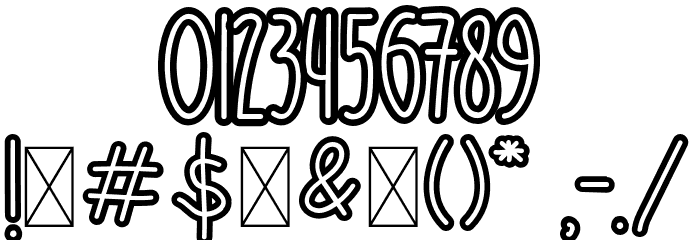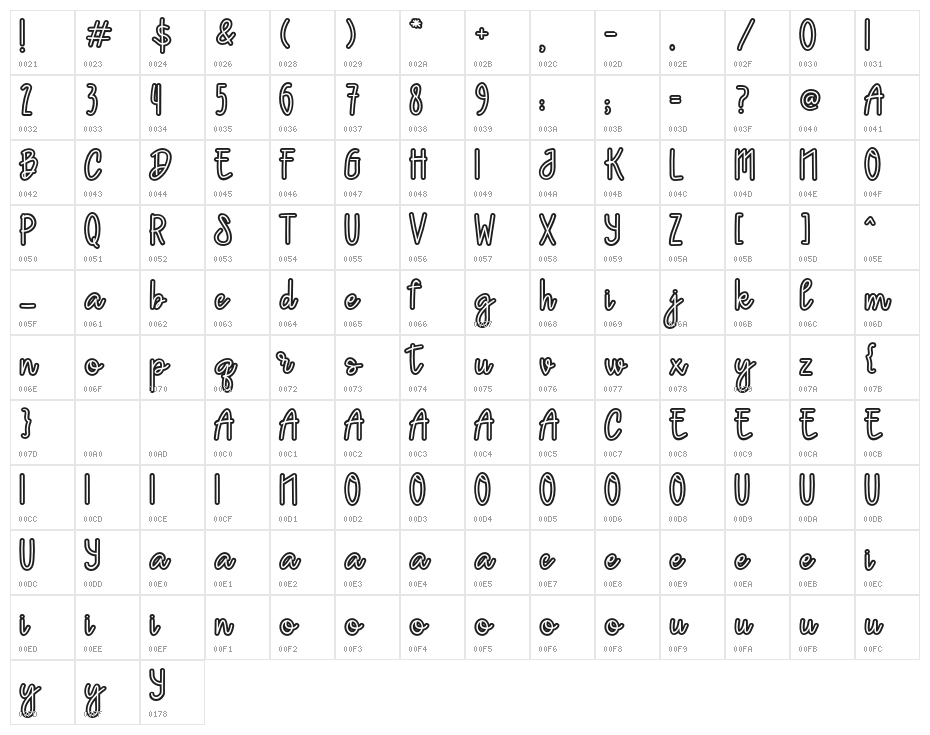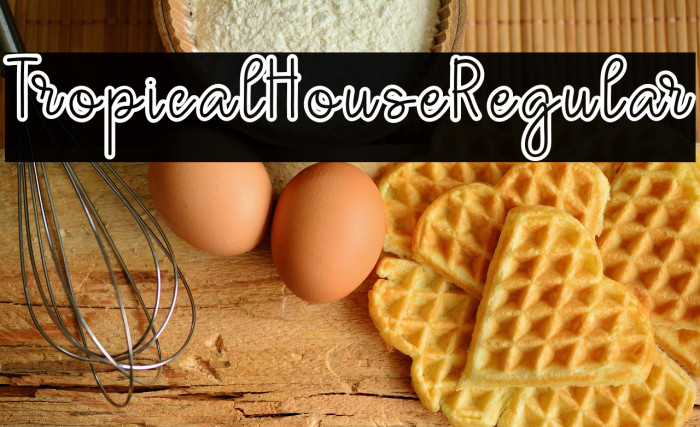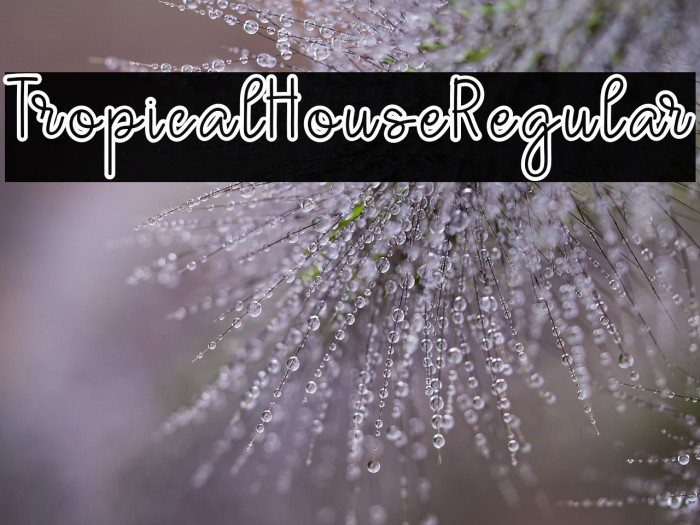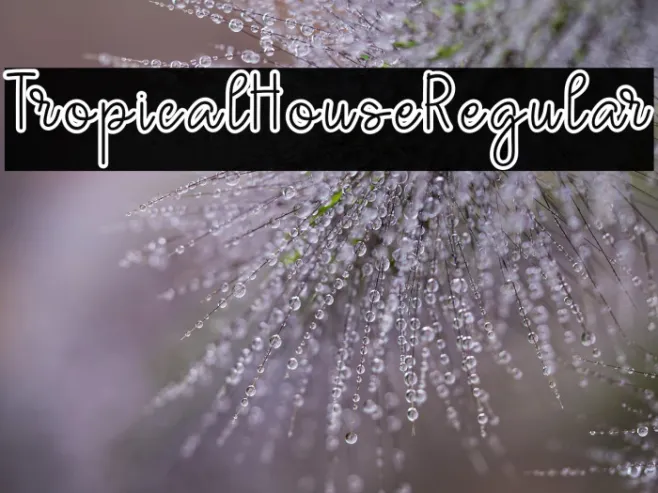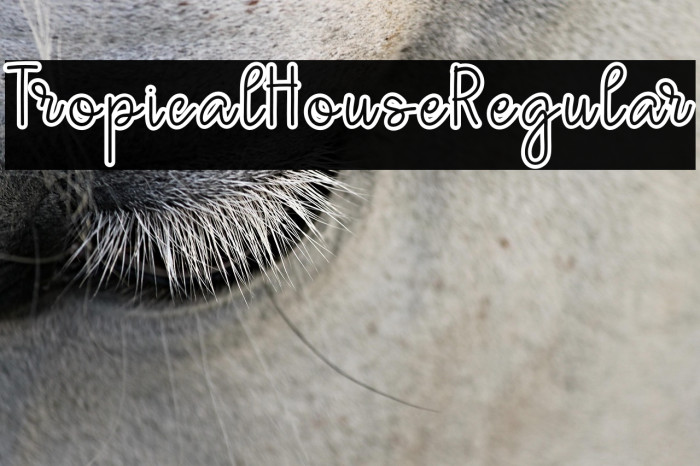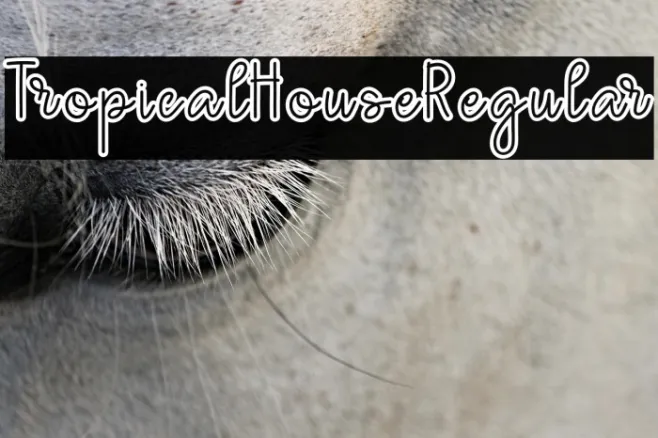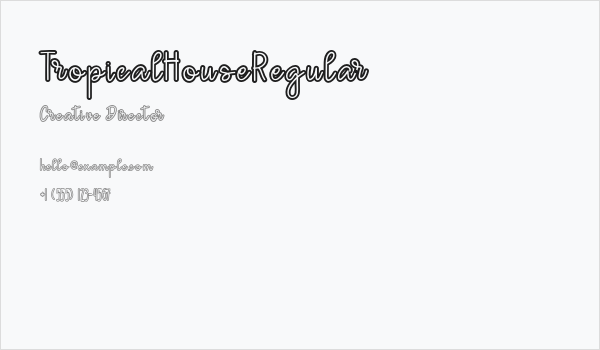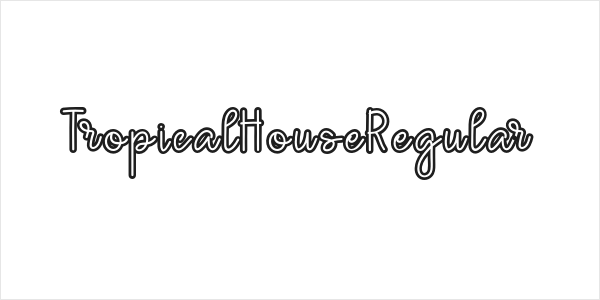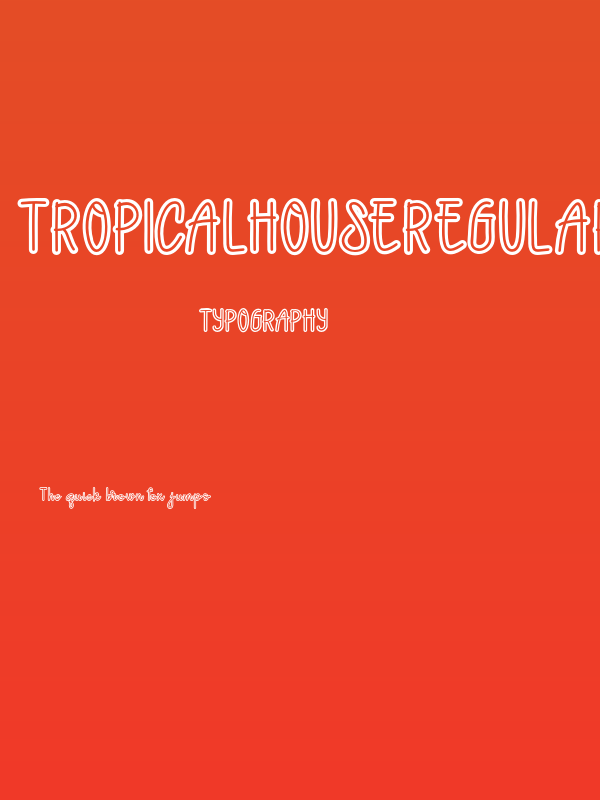
TropicalHouseRegular Font
TropicalHouseRegular Description
This font features a playful and vibrant design, combining both uppercase and lowercase letters with a unique outline style. The uppercase letters are bold and structured, while the lowercase letters have a more fluid, handwritten appearance, adding a touch of casual elegance. The numbers and special characters maintain the same outlined style, ensuring consistency across all elements. This font's distinct personality makes it suitable for projects that require a fun and lively aesthetic.
| Overall Style | Playful, Modern |
| Proposed Projects | Ideal for children's book covers, party invitations, playful branding, and social media graphics. |